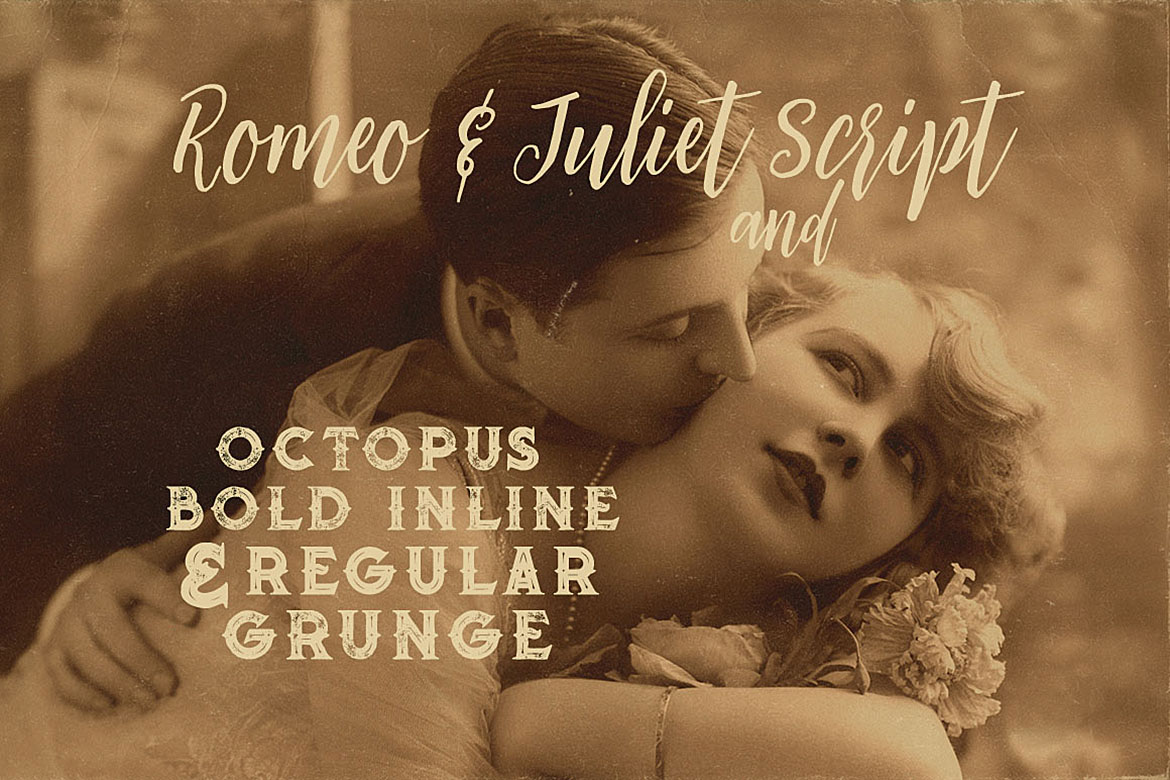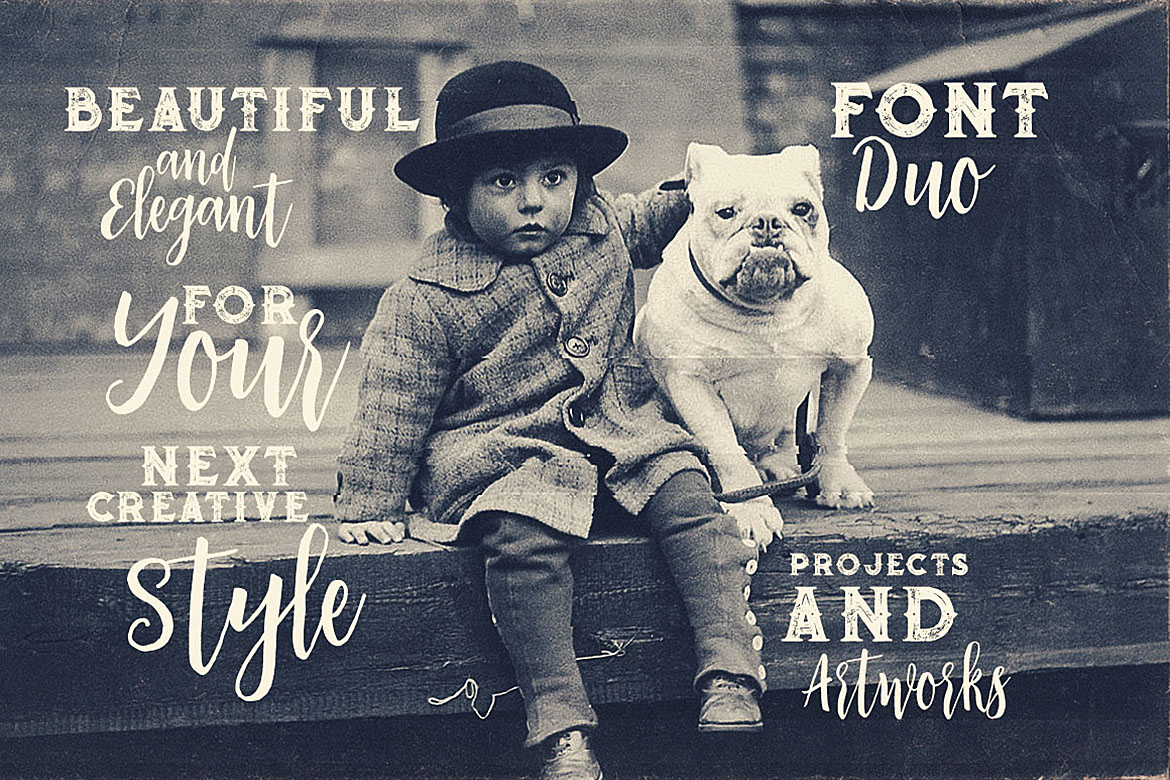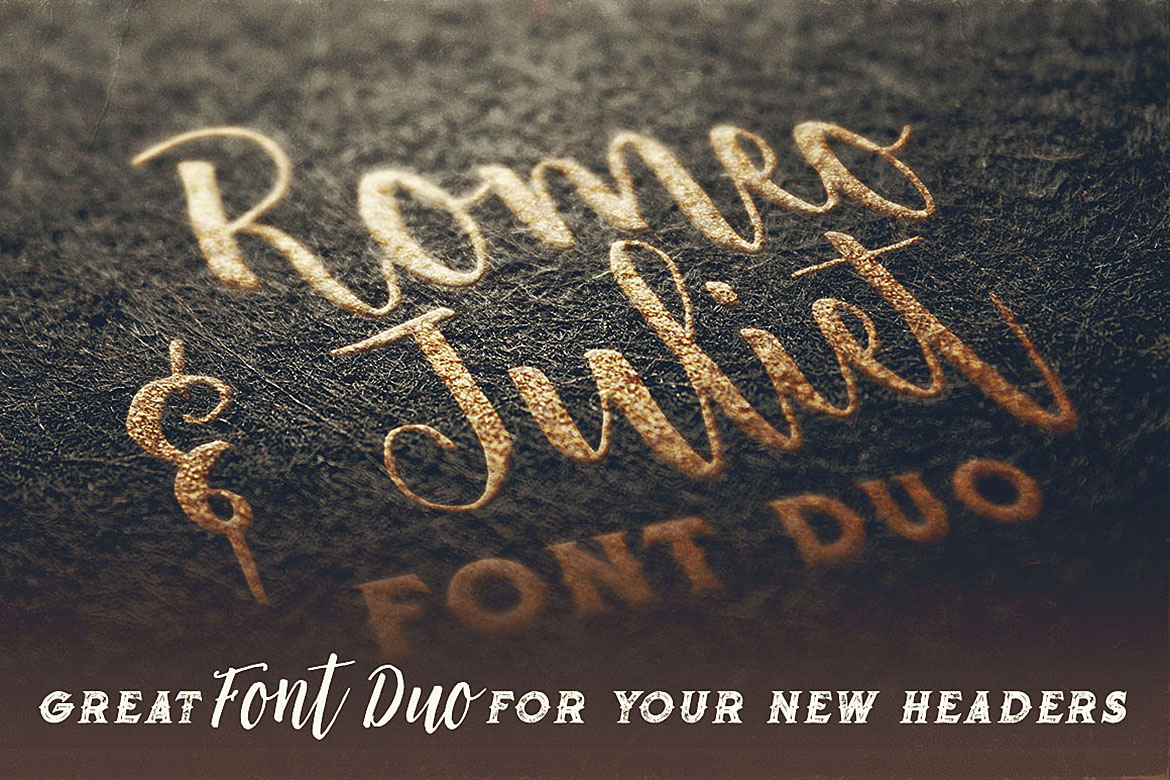
Introduction to Romeo & Juliet Font Duo Font
Cool retro or vintage style font duo for your new projects.
First font is hand-drawn & unique style brush script font with multi language support and lot of stylistic alternates + swash font Second font is bold display font with regular & grunge version (without multi language support).